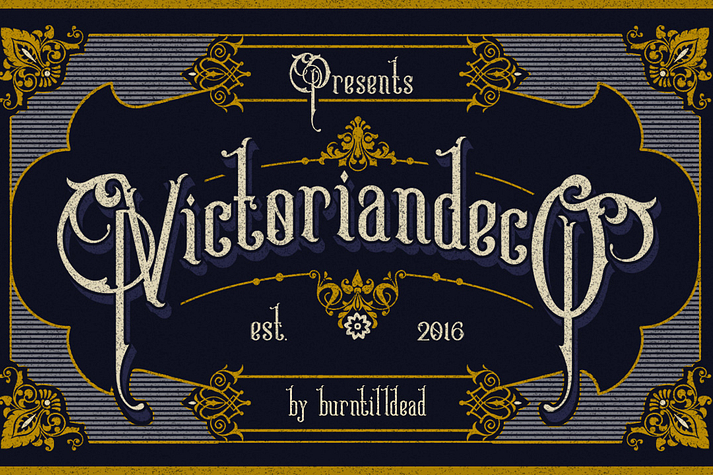
Designed by Eric Kurniawan, Victoriandeco is a historical and art nouveau font family. This typeface has two styles and was published by Burntilldead.
Victoriandeco was inspired by the Victorian era of British history, the period of Queen Victoria’s reign from 1837-1901. The beautiful edge of ornate decoration and classic font.
Victoriandeco works well with normal size text, but it works even better for large displays, short words, or even just to incorporate a few or single characters in a design.